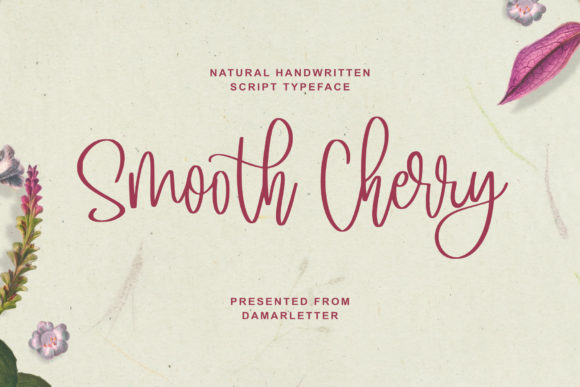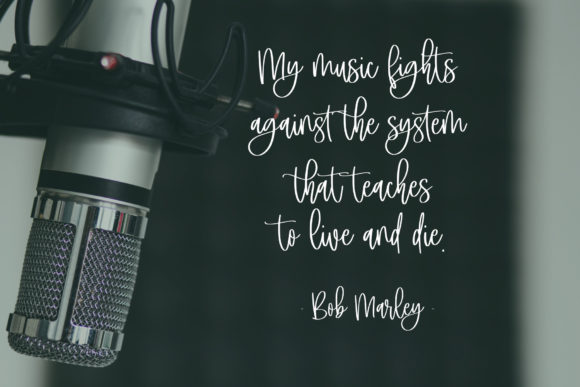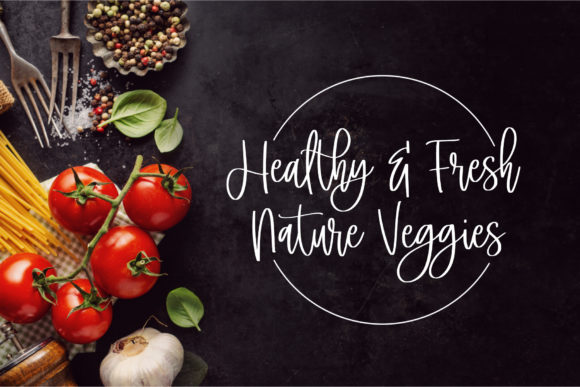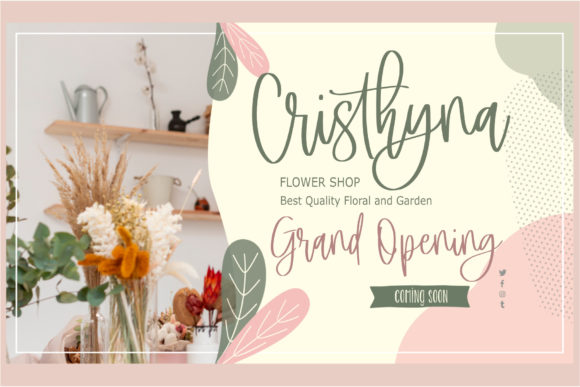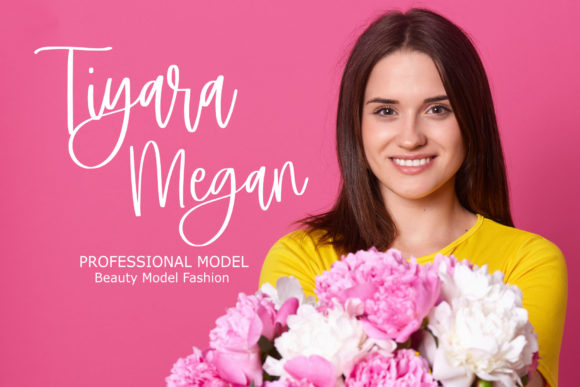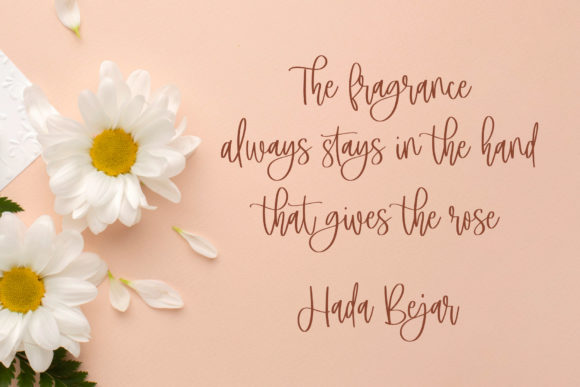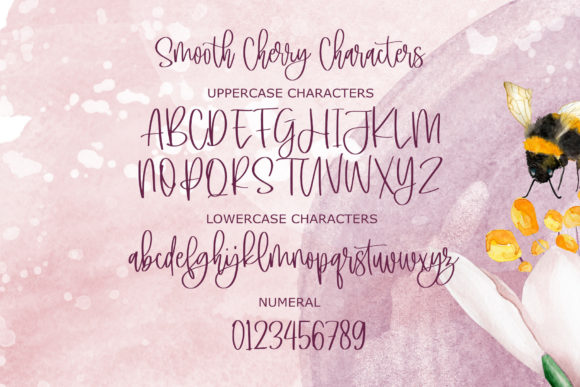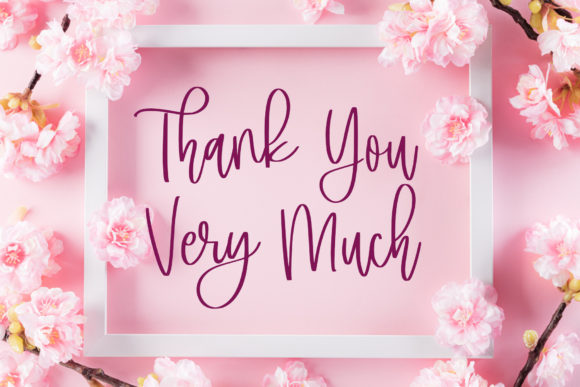
Smooth Cherry Font
About Smooth Cherry Font
Introducing Smooth Cherry, a chic and refined script font designed for elegance and versatility. With stylish ligatures that enhance its visual appeal, Smooth Cherry is the perfect match for a wide range of creative projects. Crafted to emulate the natural flow of handwritten script, this font is ideal for branding, logos, wedding designs, social media posts, advertisements, product packaging, labels, photography, watermarks, invitations, stationery, and more.
Smooth Cherry exudes sophistication, making it a stellar choice for projects that demand a touch of class. The stylish ligatures add a unique flair, elevating the font’s overall aesthetic and ensuring it stands out in various design contexts. Whether you’re creating a logo for a high-end brand or designing wedding materials, Smooth Cherry brings a refined elegance to the table.
Created to emulate the authenticity of natural handwriting, Smooth Cherry maintains a seamless and fluid appearance. This makes it not only visually pleasing but also highly versatile, allowing it to adapt gracefully to a multitude of design applications. The font’s chic and stylish demeanor adds a sense of luxury to your creative endeavors.
Whether you’re working on digital or print projects, Smooth Cherry proves to be a valuable asset in your font collection. From advertisements to product packaging and everything in between, this script font offers a timeless and refined aesthetic that enhances the visual impact of your creations.
In summary, Smooth Cherry is not just a font; it’s a statement of chic sophistication. With its stylish ligatures, natural handwritten appearance, and PUA encoding for easy access to glyphs, this font is a versatile choice for a wide array of design projects. Elevate your creative work with the elegant charm of Smooth Cherry, where refinement meets versatility.